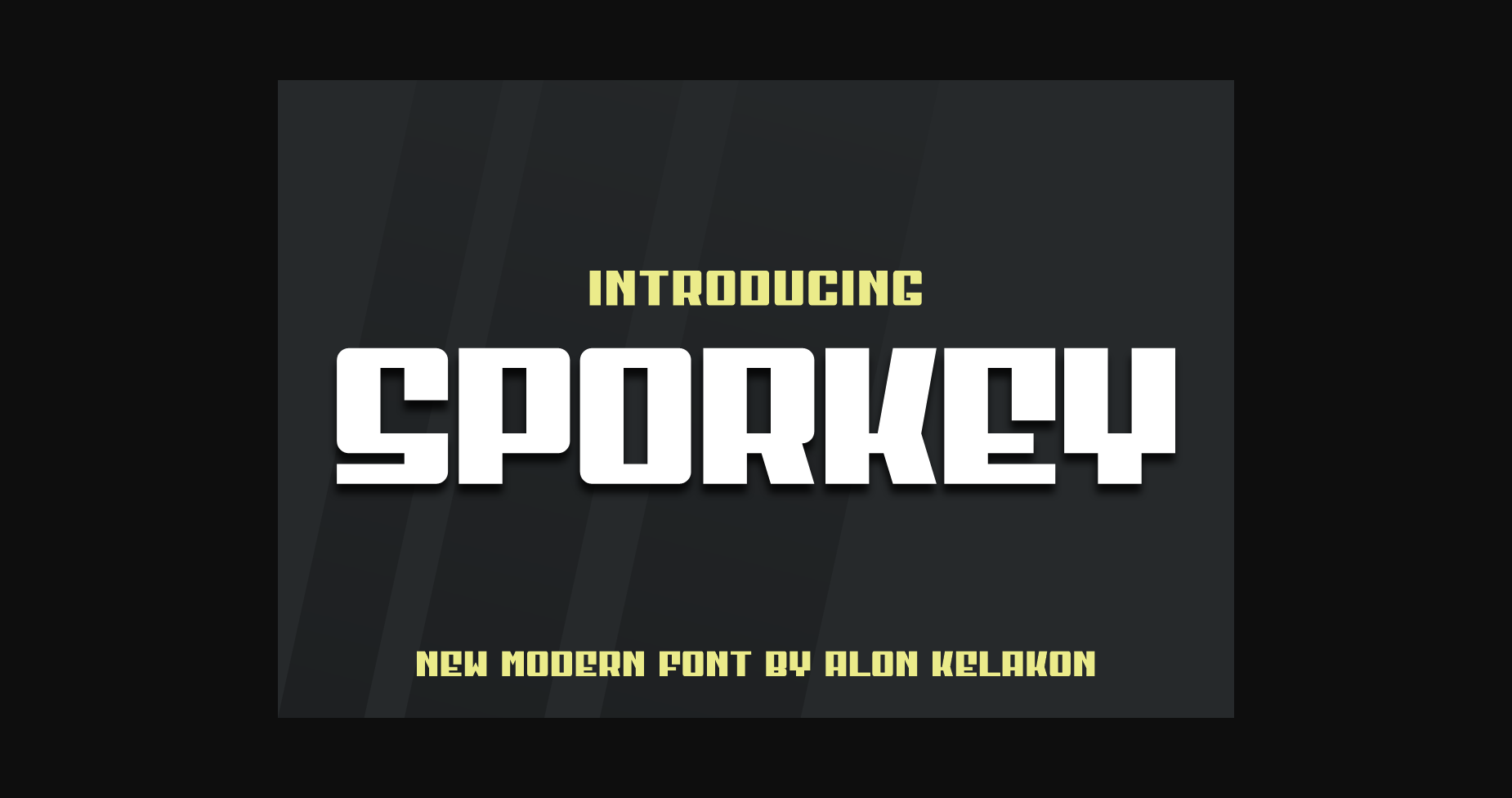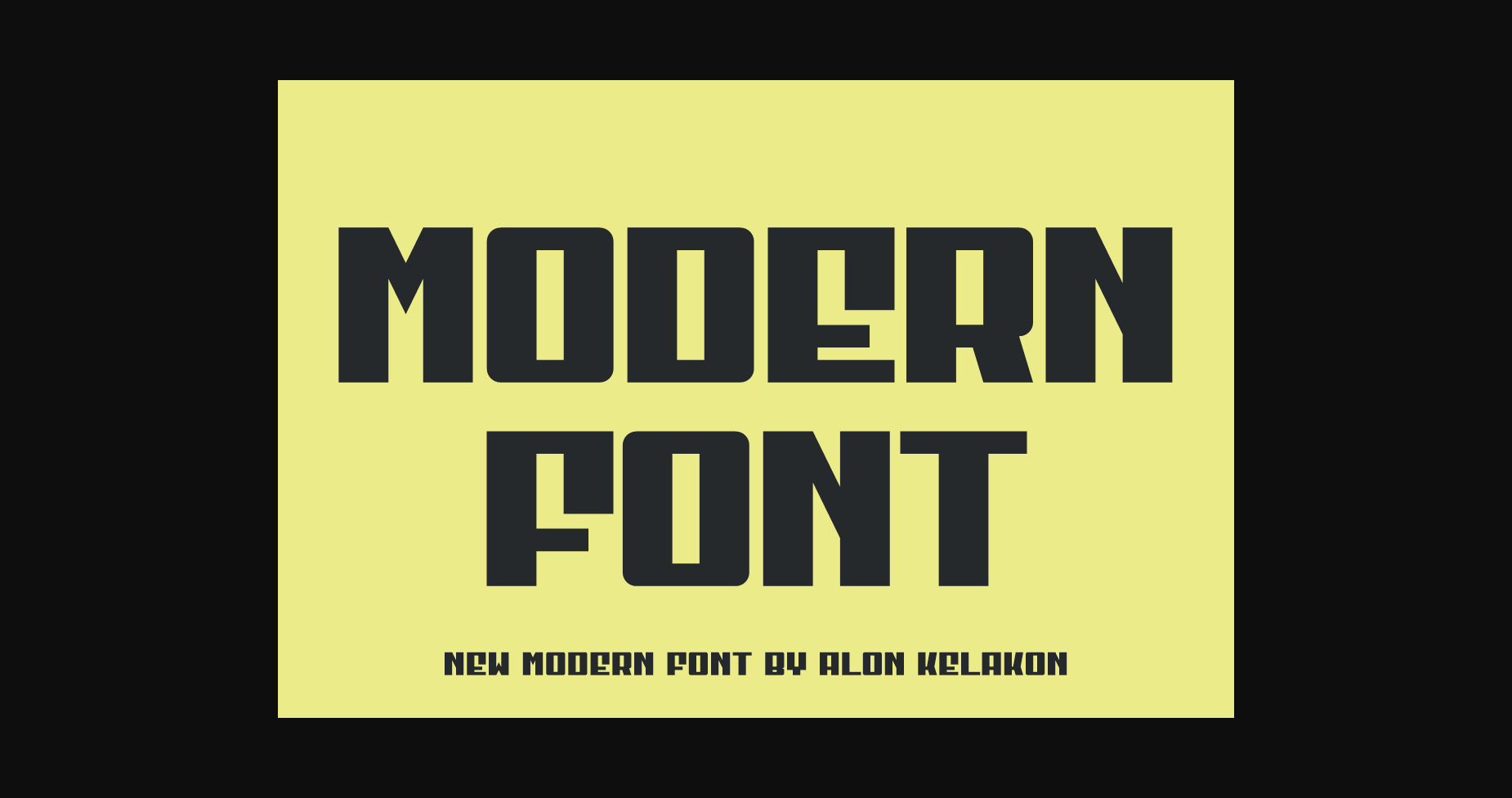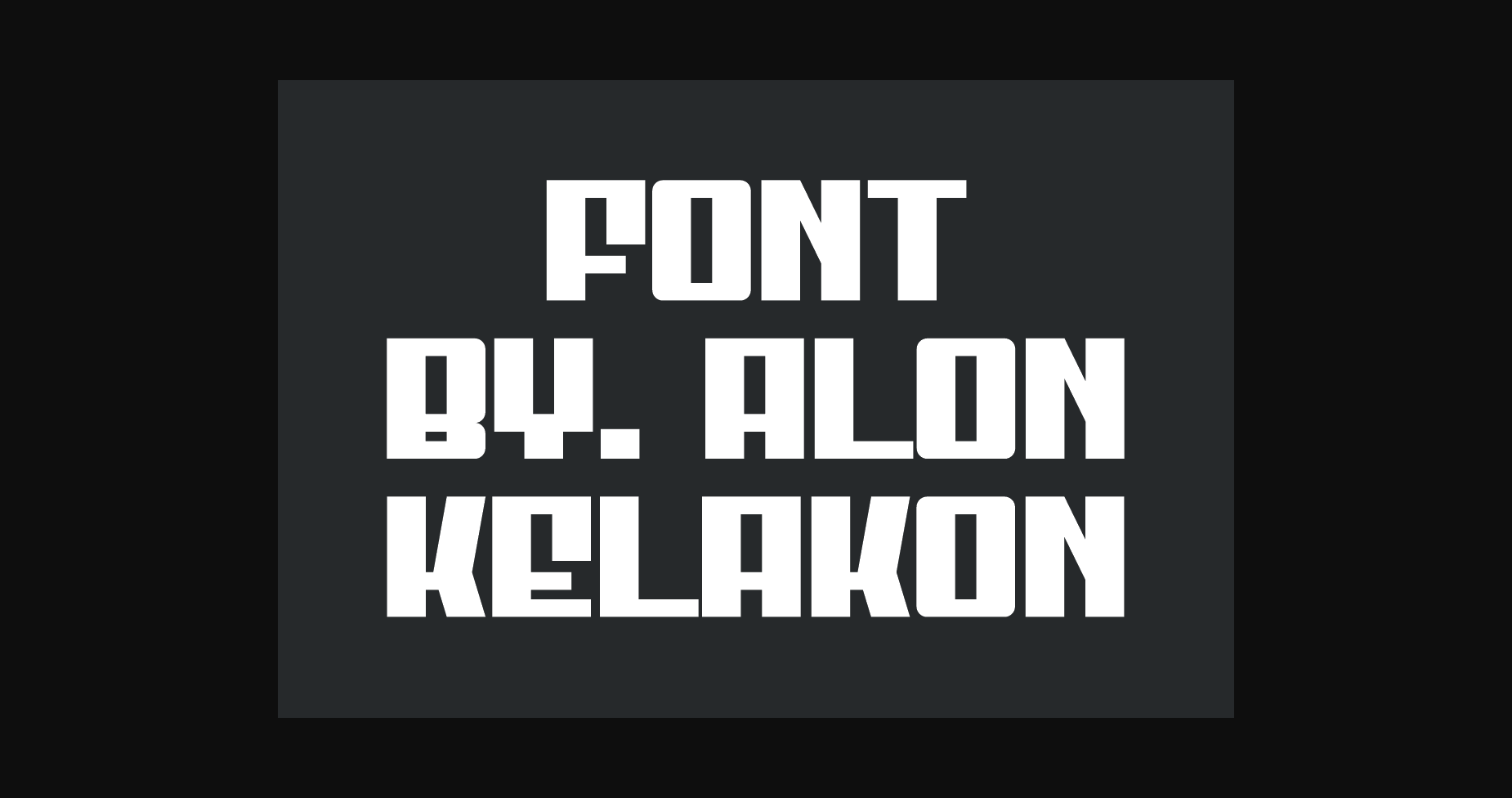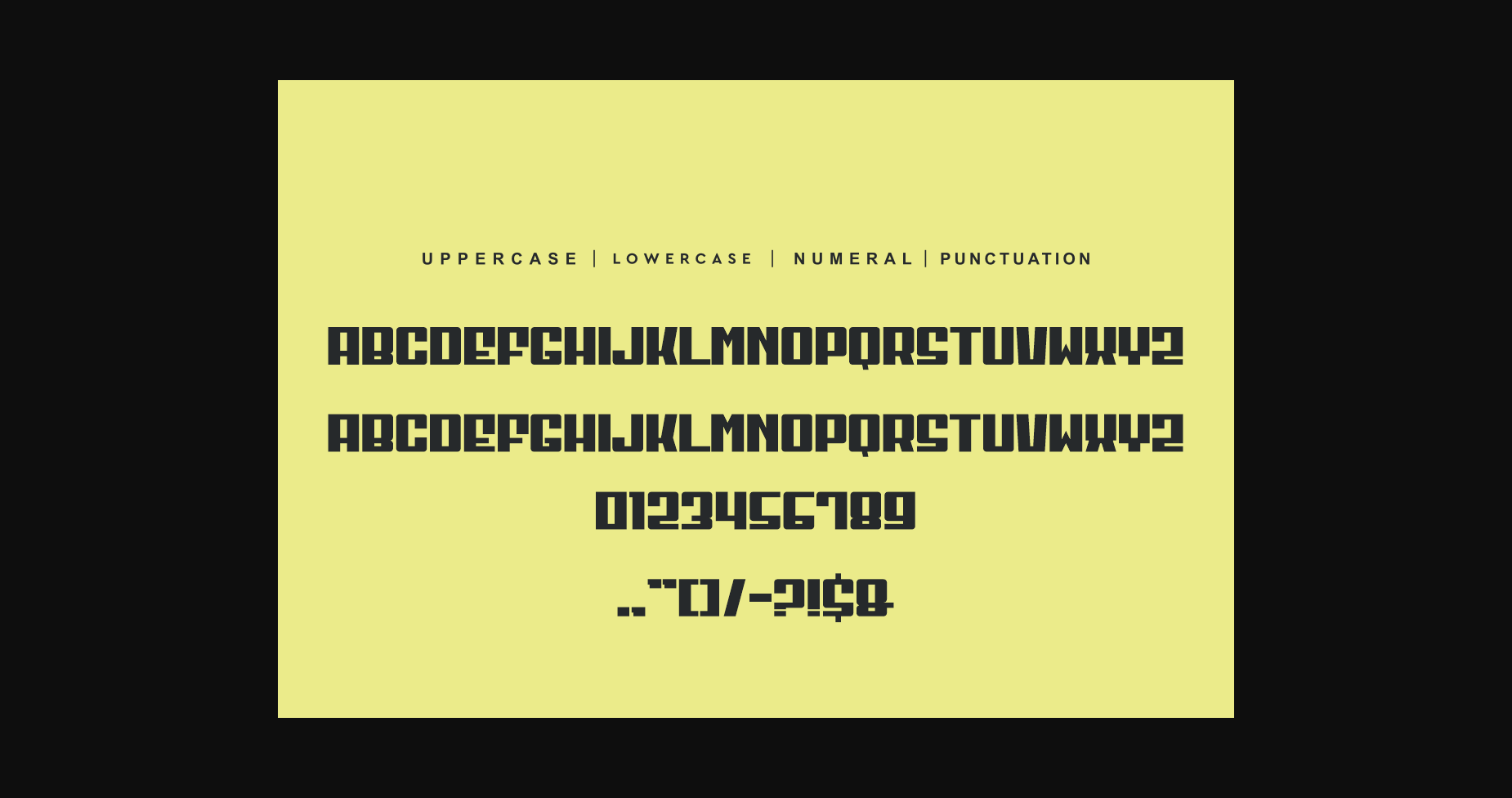
About Sporkey Font
Sporkey is a modern sans-serif font that displays clean and minimalistic characteristics. Its letterforms are impressive and geometric in shape, and it looks modern and crisp on a variety of media. It’s a great choice for headlines and displays text.